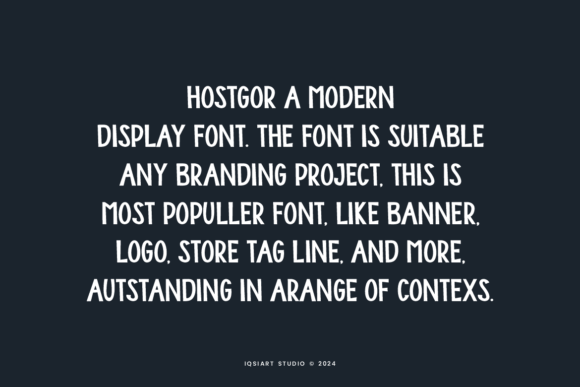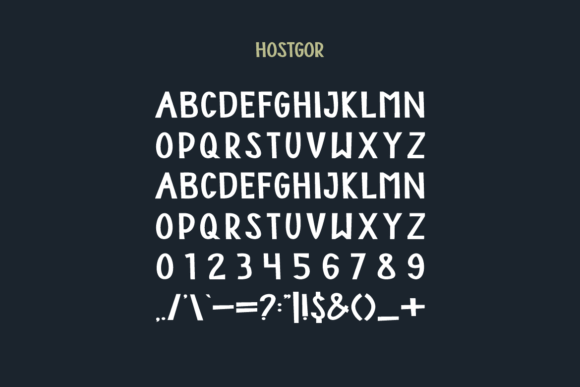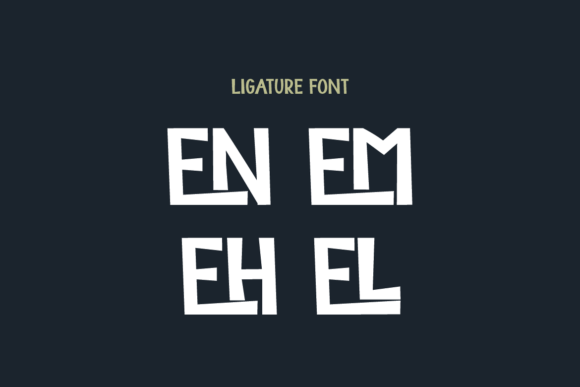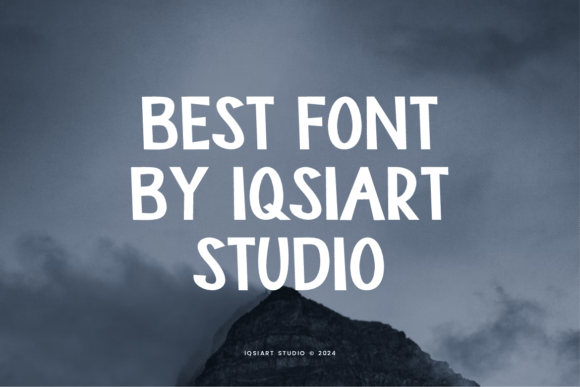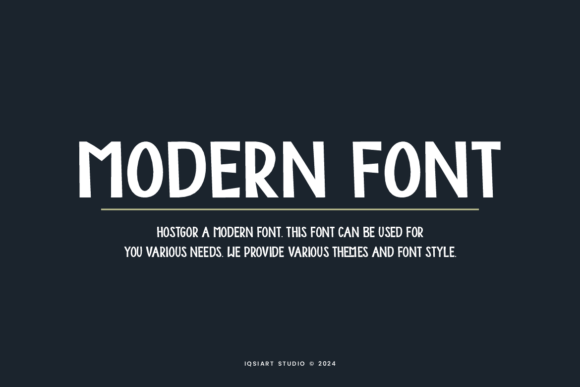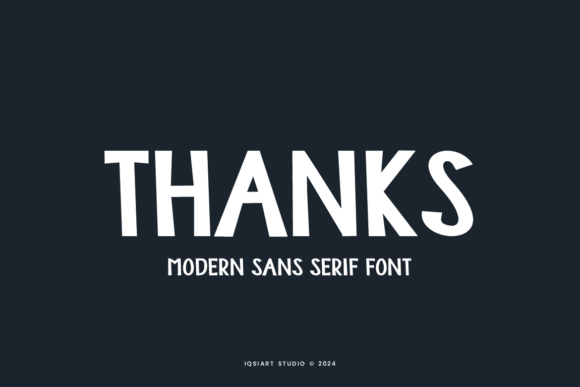
Unlocking the Power of Modern Typography
Have you ever stared at a blank page, waiting for inspiration to strike? That’s exactly what happened to me the last time I was working on a design project. I was trying to create a visually appealing logo, but everything I tried seemed to fall flat. That’s when I stumbled upon the Hostgor Font – a sleek and modern sans-serif font that instantly transformed my design.
Hostgor Font is designed to provide a clean and contemporary look that’s perfect for both digital and print designs. Its easy-to-read format makes it an excellent choice for headings, logos, and any text that requires a touch of modernity. As a designer, I can attest to the value of having a versatile font like Hostgor at your disposal – it can elevate your work from good to great in an instant.
Whether you’re a seasoned designer or just starting out, the Hostgor Font is an invaluable addition to your toolkit. Its stylish appearance and ease of use make it an ideal choice for anyone looking to add a modern touch to their designs.
Hostgor Font Key Features
- Unique Characteristics: This font features a distinctive, modern design with clean lines, geometric shapes, and a neutral color palette, making it perfect for contemporary branding and design projects.
Hostgor Font Review
Overall, I have mixed feelings about the Hostgor Font. While it has some great features, it also has some significant limitations.
- Unique Design – Hostgor Font has a unique and modern design that can be a great addition to any project. Its geometric shapes and clean lines make it perfect for digital interfaces.
- High Customization – The font is highly customizable, allowing you to adjust its size, color, and spacing to fit your needs.
- Great for Digital Use – Hostgor Font is optimized for digital use, making it a great choice for websites, apps, and other digital projects.
- Difficult to Read – While the font looks great, it can be difficult to read, especially at smaller sizes. This may make it less suitable for print projects or large blocks of text.
- Limited Language Support – Hostgor Font may not support all languages, which could be a limitation for international projects.
- Not Suitable for Body Text – The font is best used for headings or titles, as its unique design can be distracting for body text.
Overall, I would recommend the Hostgor Font for digital projects that require a modern and unique design. However, it may not be the best choice for print projects or projects that require readability.
The Hostgor Font is a versatile font that can be used in various designs, such as:
– Logos
– Branding materials
– Digital products
– Print materials